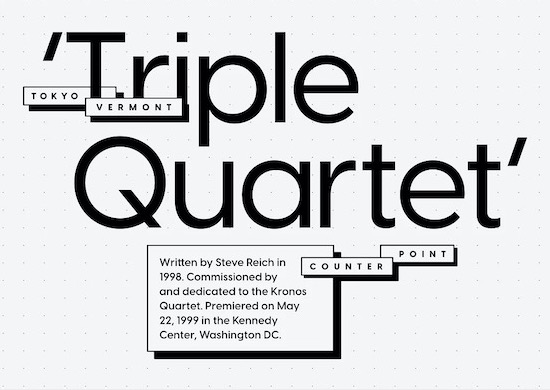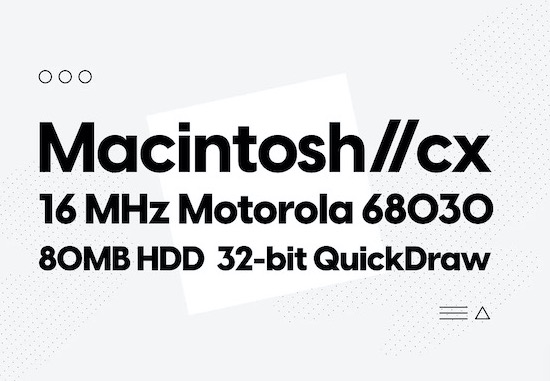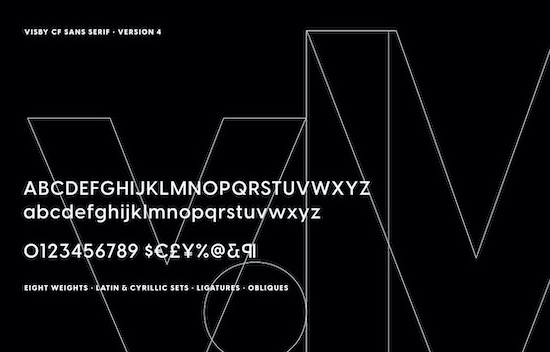
Visby CF Font
Visby is an elegant modern classic Sans Serif font that has a unique & versatile geometric style. It was created and designed by a font designer named Connary Fagen. It’s just a tiny bit fancier than your other favorite sans serif fonts. This font has also friendly and charismatic in lowercase as well as authoritative & sophisticated in uppercase. Besides, it also has four unique that add a host of improvements, including redrawn and improved punctuation and letterforms, along with a bolder heavyweight, revised and expanded kerning, additional and improved language support, and improved handling in the Figma design app.